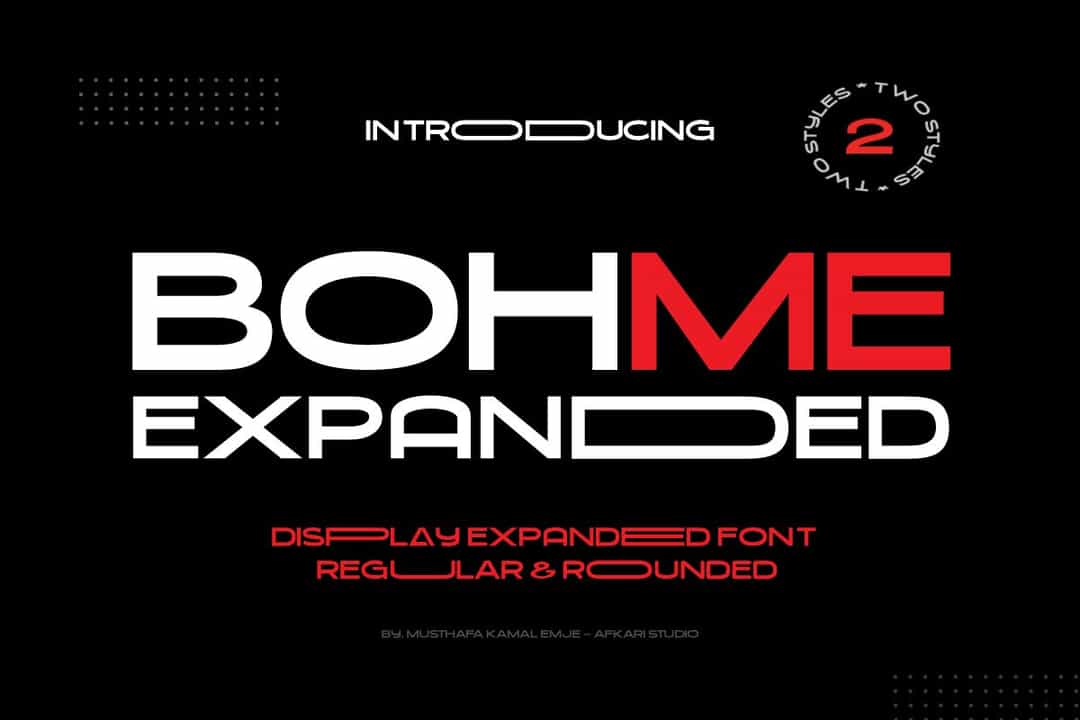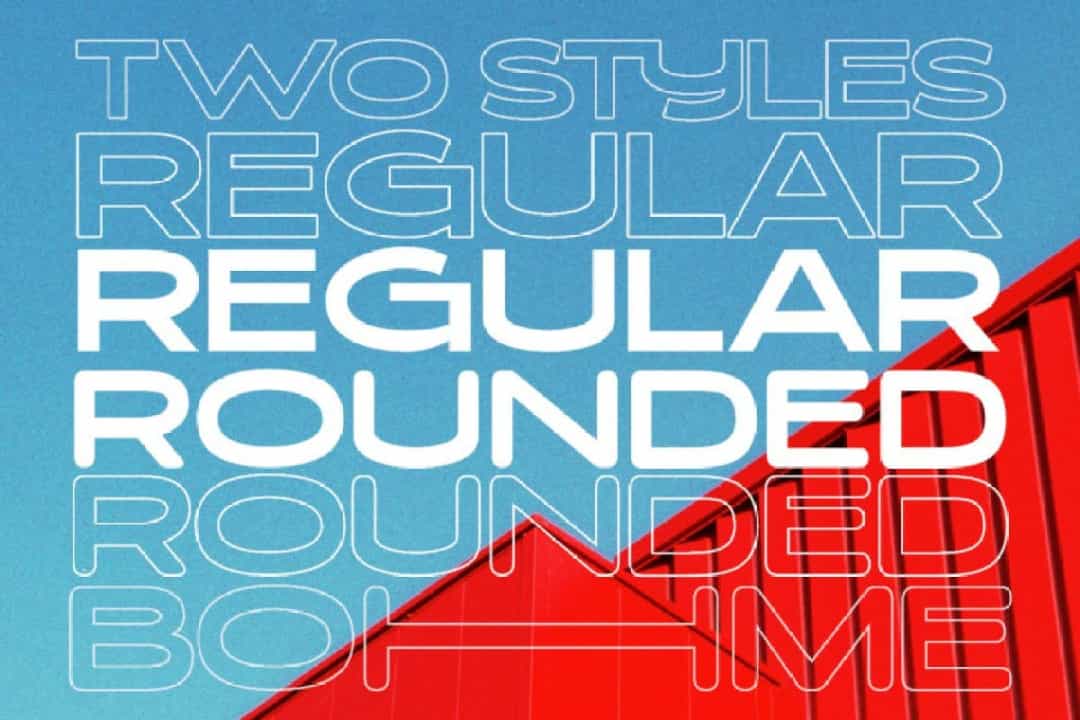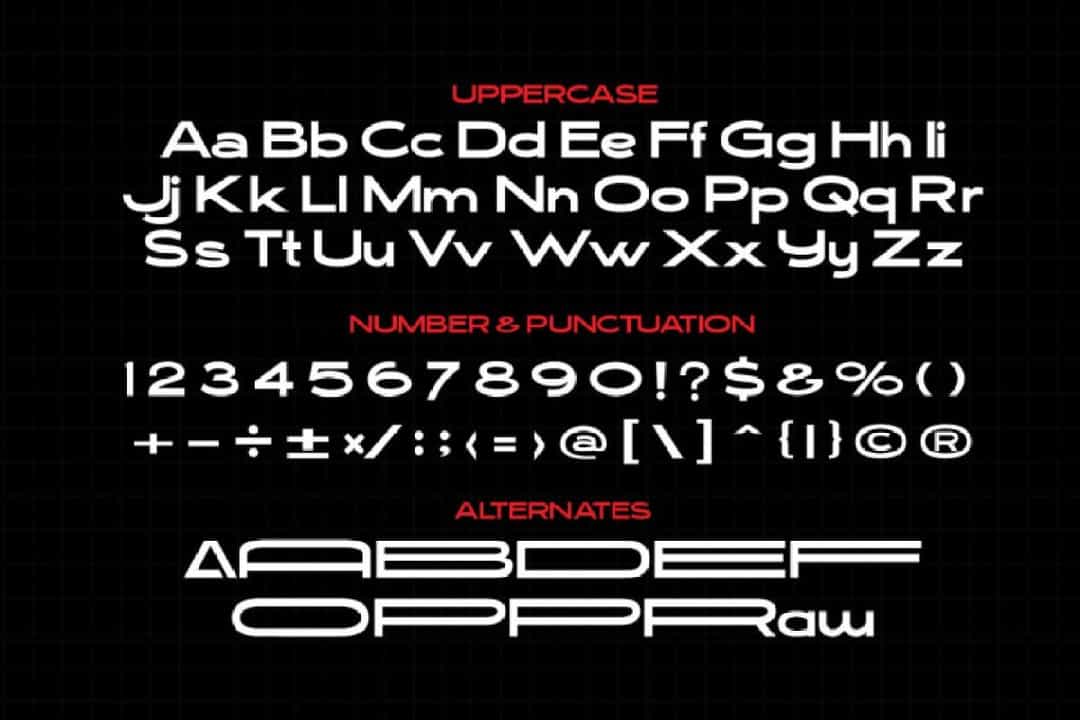
Bohme Expanded is an exciting and modern Display Sans Serif Font that elevates typography to new levels. Bohme’s bold and sweeping appearance make it suitable for those seeking something that seamlessly merges contemporary style with sophisticated elegance.